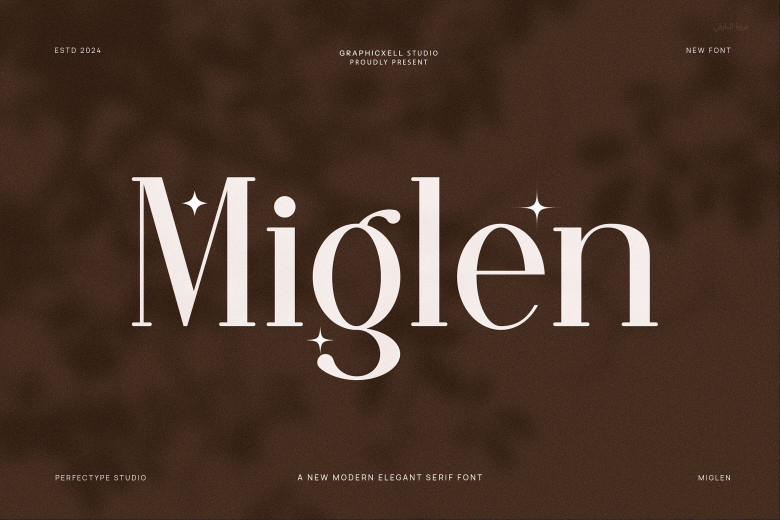
Miglen Font
Miglen is a pleasant and even refined serif font. Can be used for the headings of the features and for the decorative parts of the catalogues or the brochures giving more elegance and class.
Miglen Serif Font